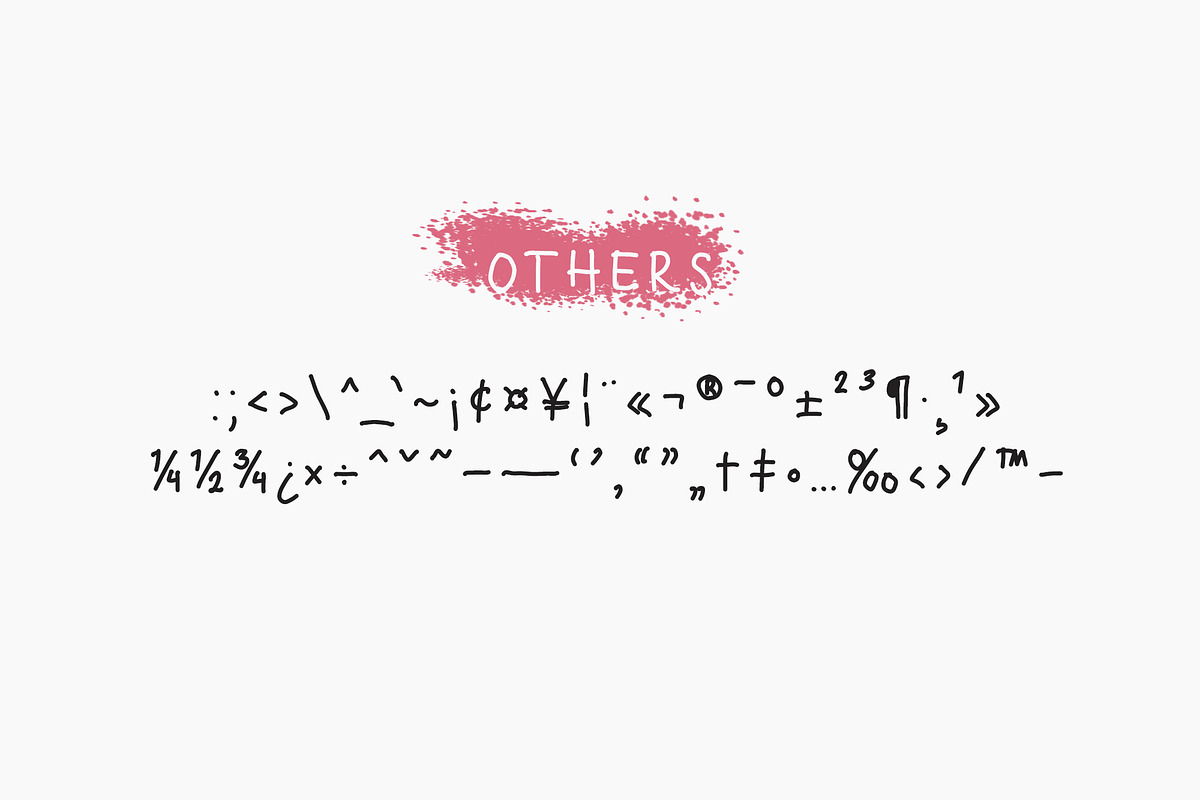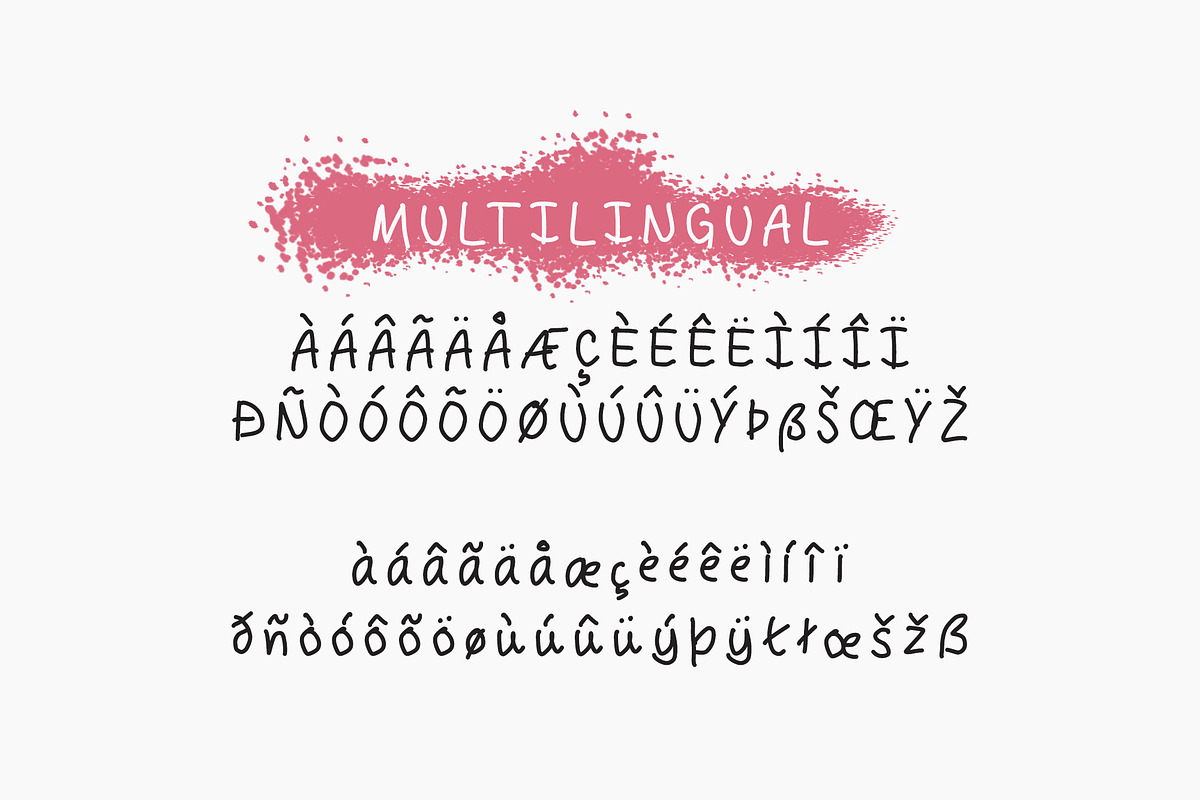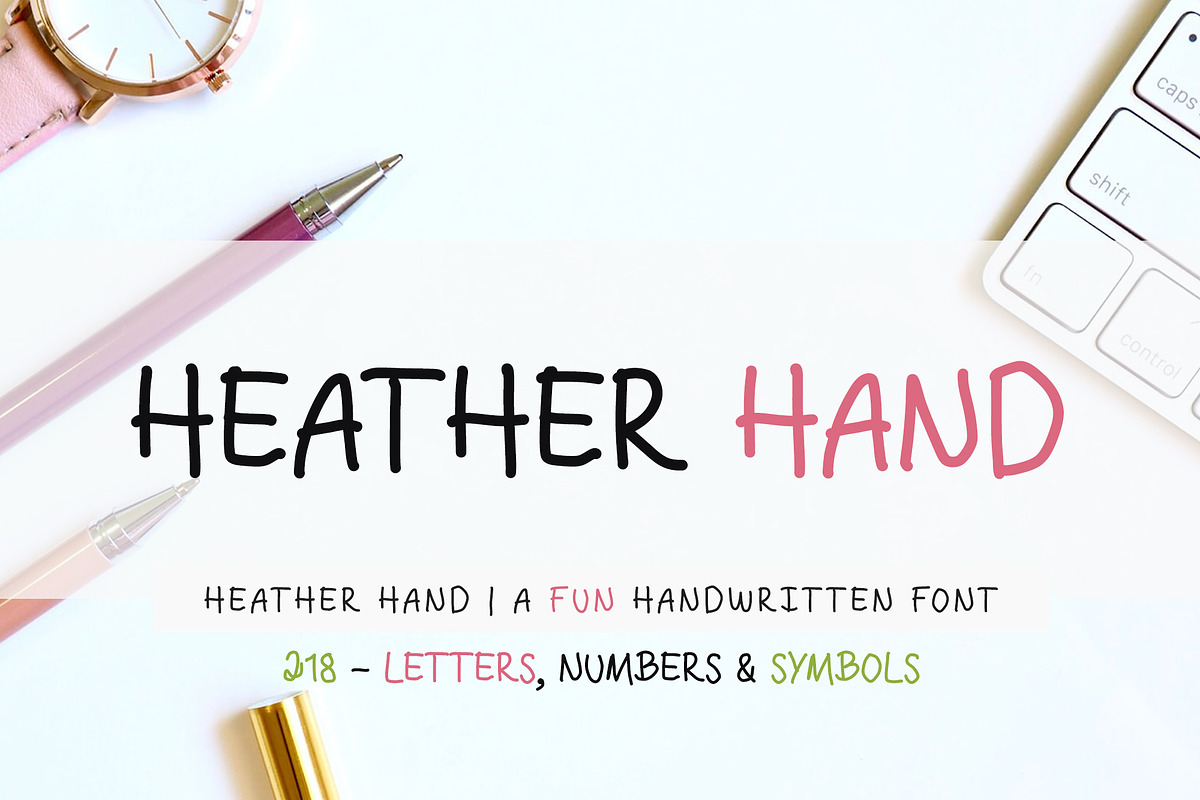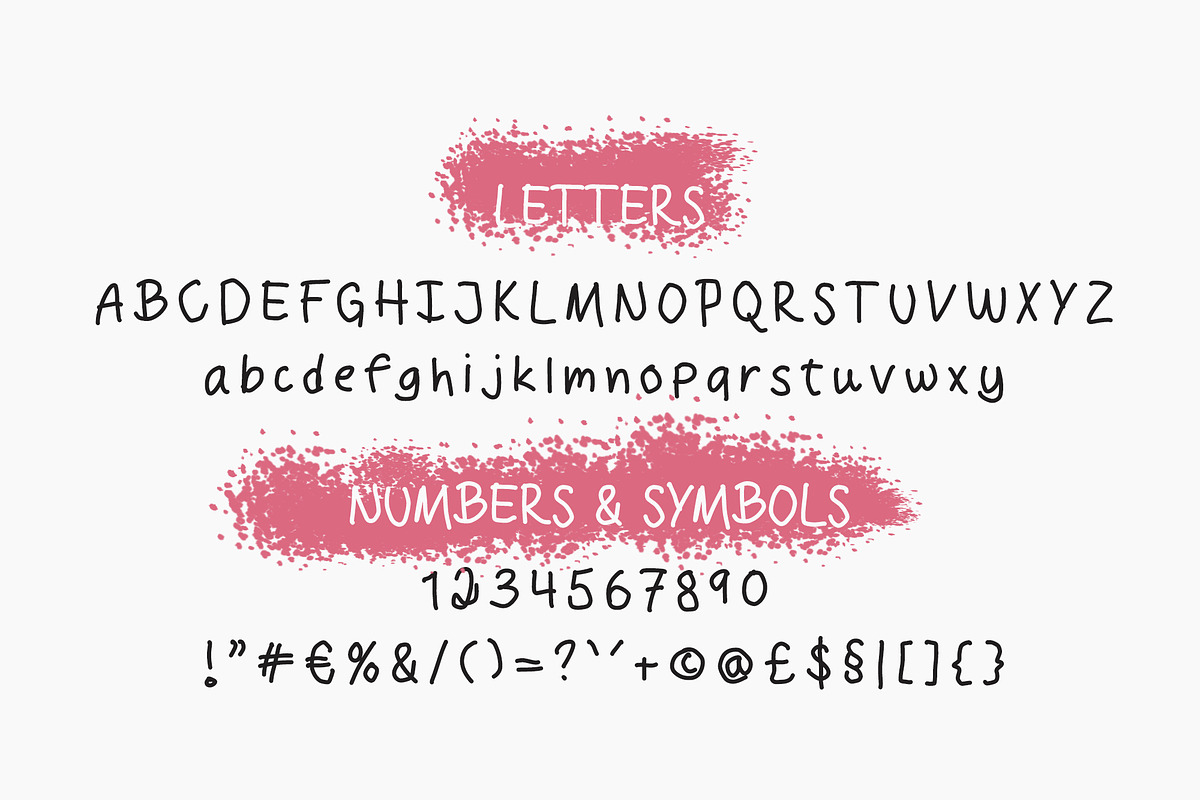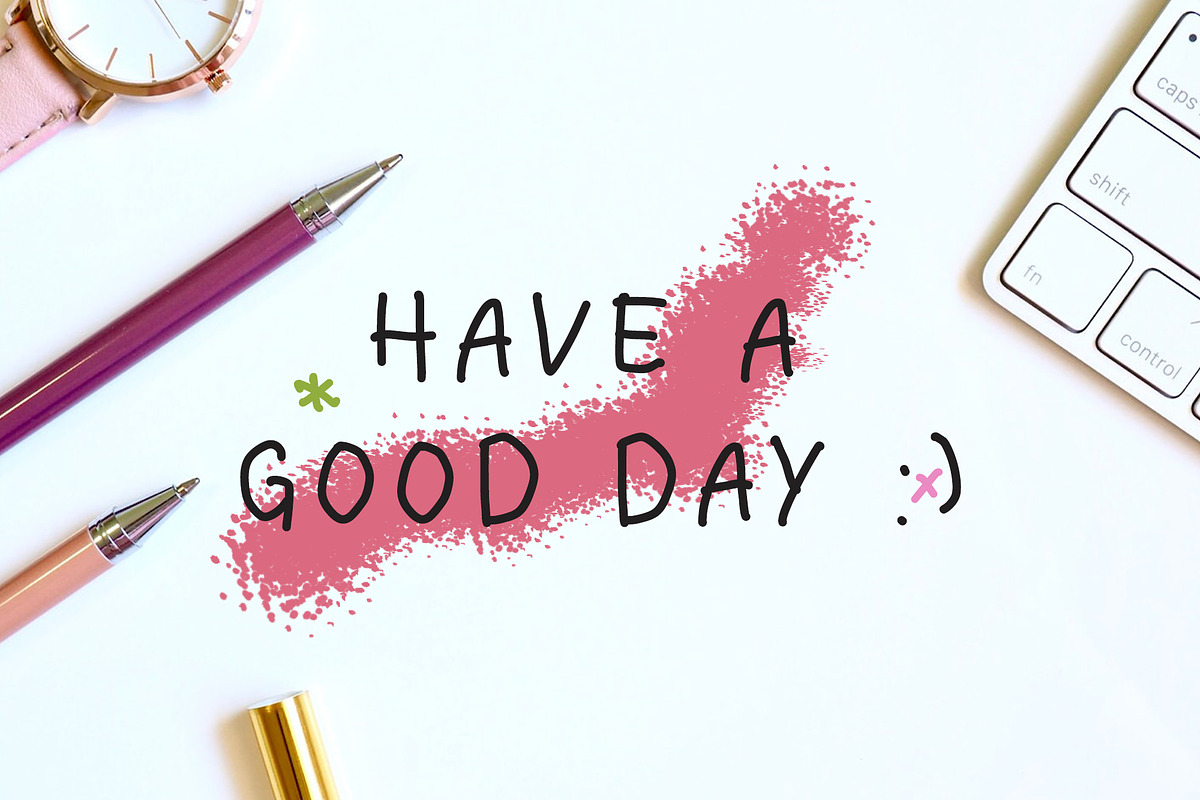
Heather - A Quirky Handwritten Font
Heather Handwritten - A Quirky Handwritten Font
218 Handwritten Letters, Numbers & Symbols including: å ä ö ø æ œ é † µ ü ı ß ∂ ƒ ¸ ˛ ÷ ç ‹ › ‘ ’ ‚ … – ’ * - SEE ALL IN THE PREVIEW IMAGES